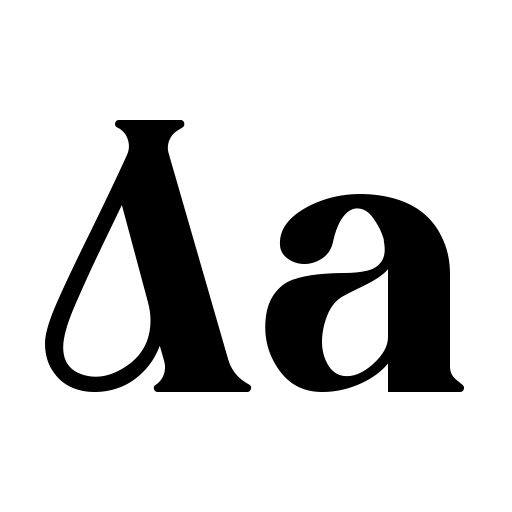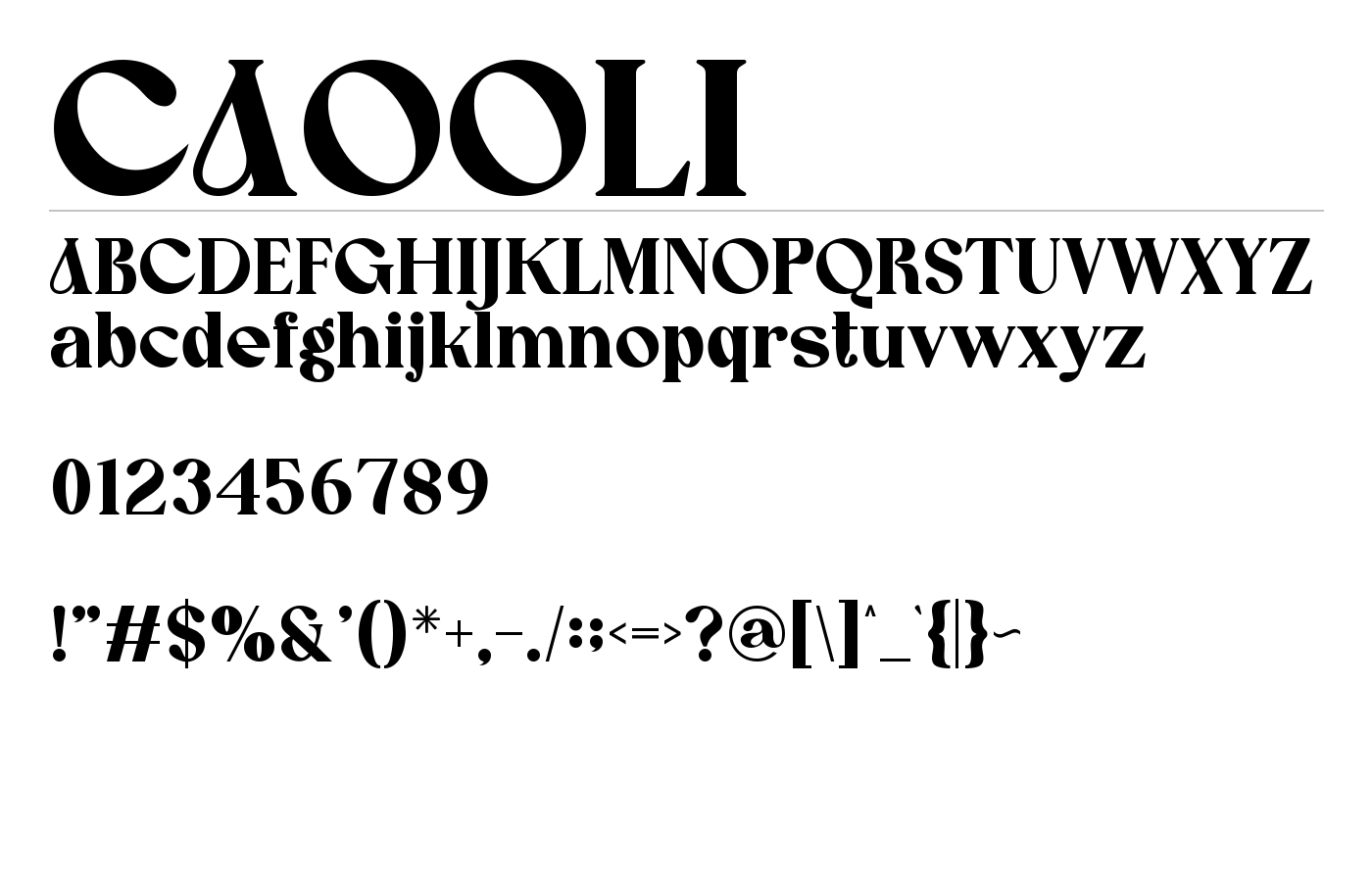
CAOOLI is a distinctive serif font characterized by high contrast between thick and thin strokes and unique, artistic letterforms that blend classic elegance with a modern twist. Its sharp, bracketed serifs and sturdy structure give it a bold yet refined presence, making it ideal for high-impact headlines, luxury branding, and editorial design where a sophisticated and memorable look is desired. This font’s stylish details and clear readability ensure it stands out while maintaining a timeless feel.
CAOOLI Font
About CAOOLI Font
| Font family | CAOOLI Font |
| Designer | Maikohatta |